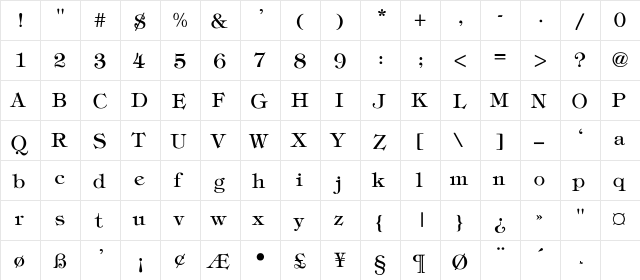
Dorian-Light Regular
Design Context for Dorian-Light Typeface
Dorian-Light is a composed and adaptable typeface that performs quietly and consistently across a wide range of design contexts. Its slender proportions lend an understated elegance to any composition.